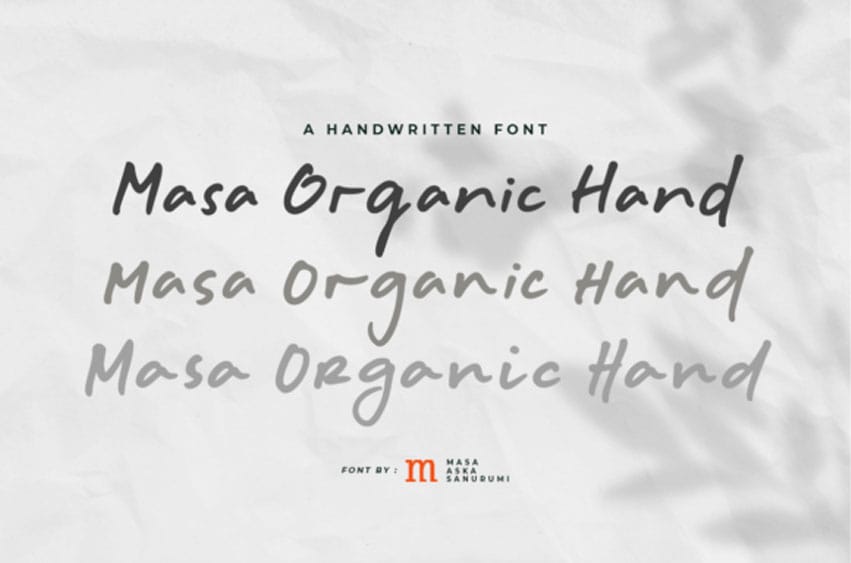
Masa Organic Hand Font is a versatile and stylish handwritten font, perfect for a wide spectrum of applications such as greeting cards, headlines, and many more!
Add it to any of your creative projects, and it will give them a clean and exquisite feel.